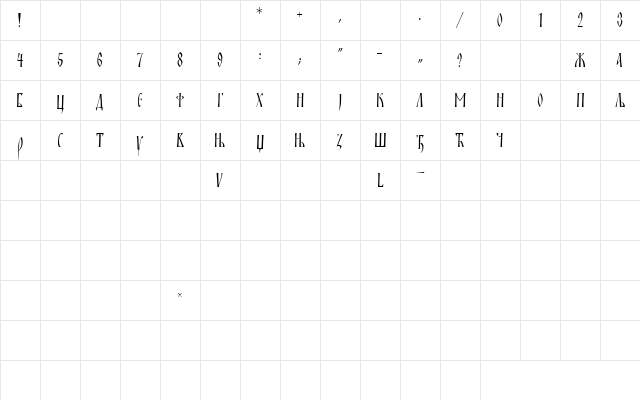
MiroslavljevoJevandjelje Regular Free Font
MiroslavljevoJevandjelje Regular
Design Context for MiroslavljevoJevandjelje
MiroslavljevoJevandjelje is a composed and adaptable typeface that performs quietly and consistently across a wide range of design contexts.